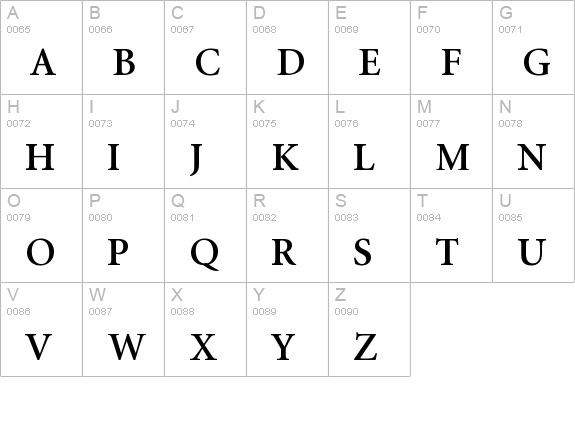
Atlantix SSi Semi Bold is a strong, high-contrast variant in the Atlantix typeface family \xE2\x80\x94 well suited to headlines, attention-grabbing titles, and strong calls-to-action.
Atlantix SSi Semi Bold font is a modern and stylish typeface that strikes the perfect balance between sophistication and readability. Its sleek lines and bold curves make it a versatile choice for a wide range of design projects, from logos to headlines. The Semi Bold weight adds a touch of emphasis without overwhelming the overall design. What makes Atlantix SSi Semi Bold font even more appealing is that it is available for free download at FontsMarket.com. This means you can effortlessly enhance your projects with this elegant font without any additional cost. Whether you're creating a professional presentation, designing a website, or crafting a unique branding identity, Atlantix SSi Semi Bold font is sure to elevate your work to the next level. Download it today and add a touch of sophistication to your designs!